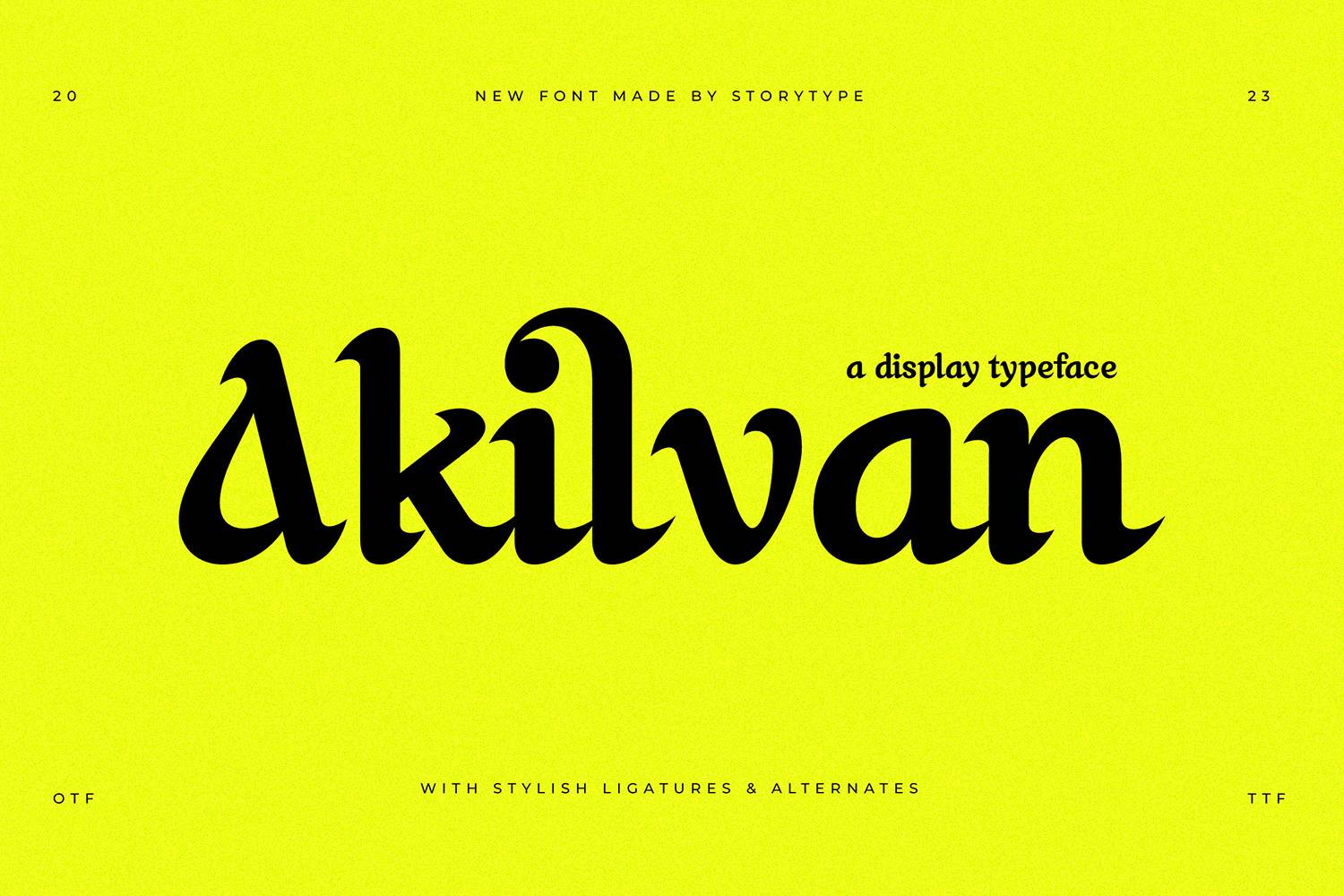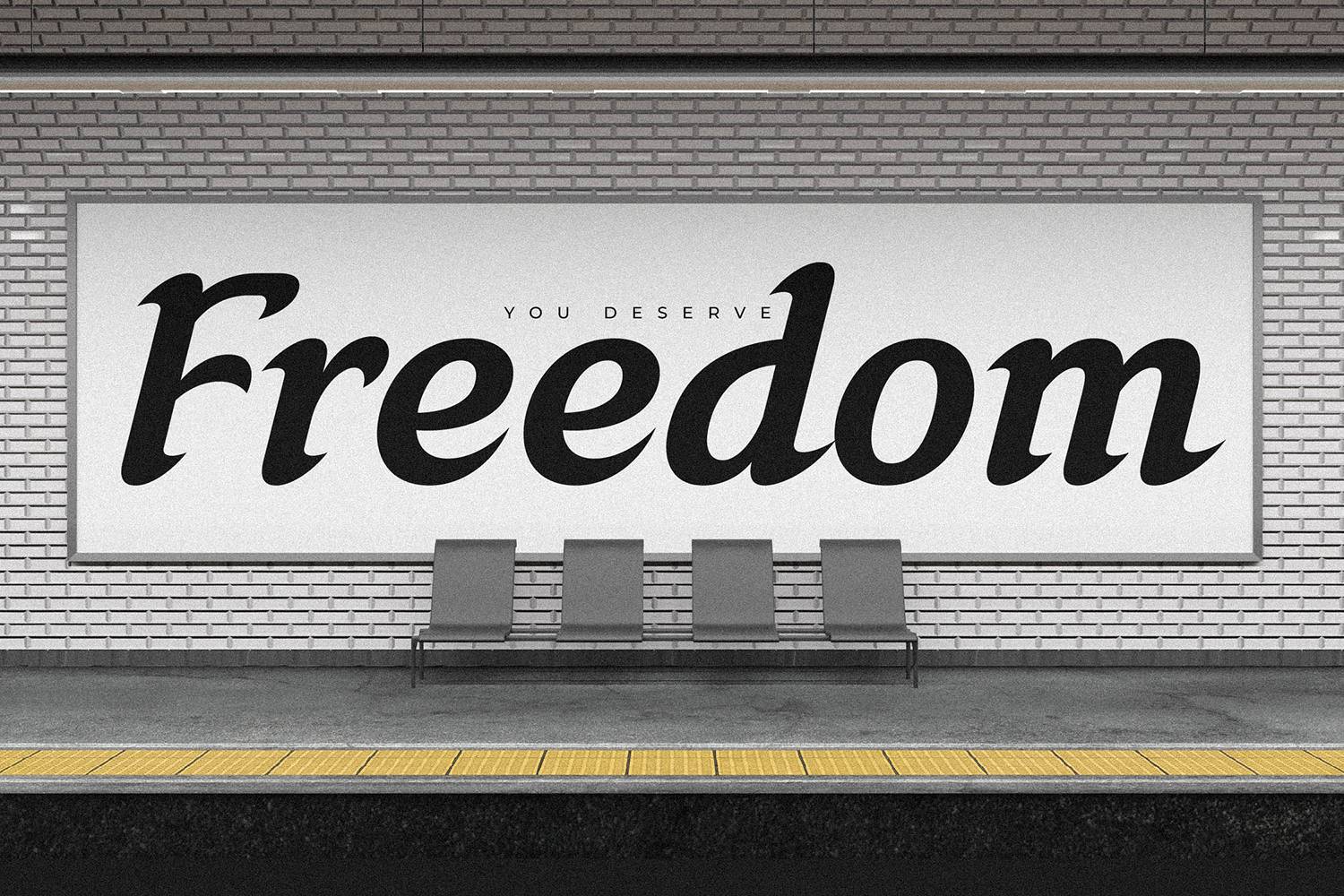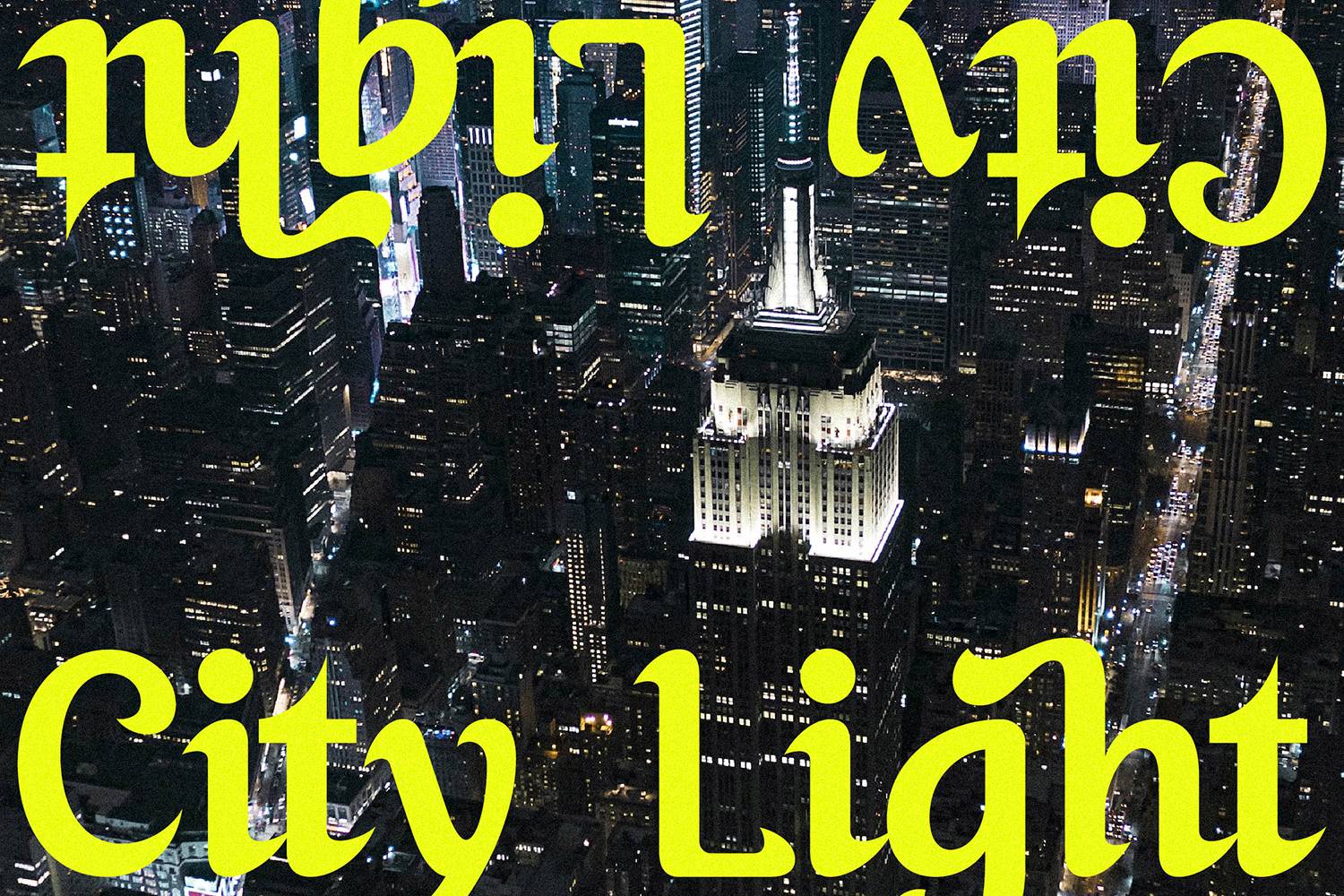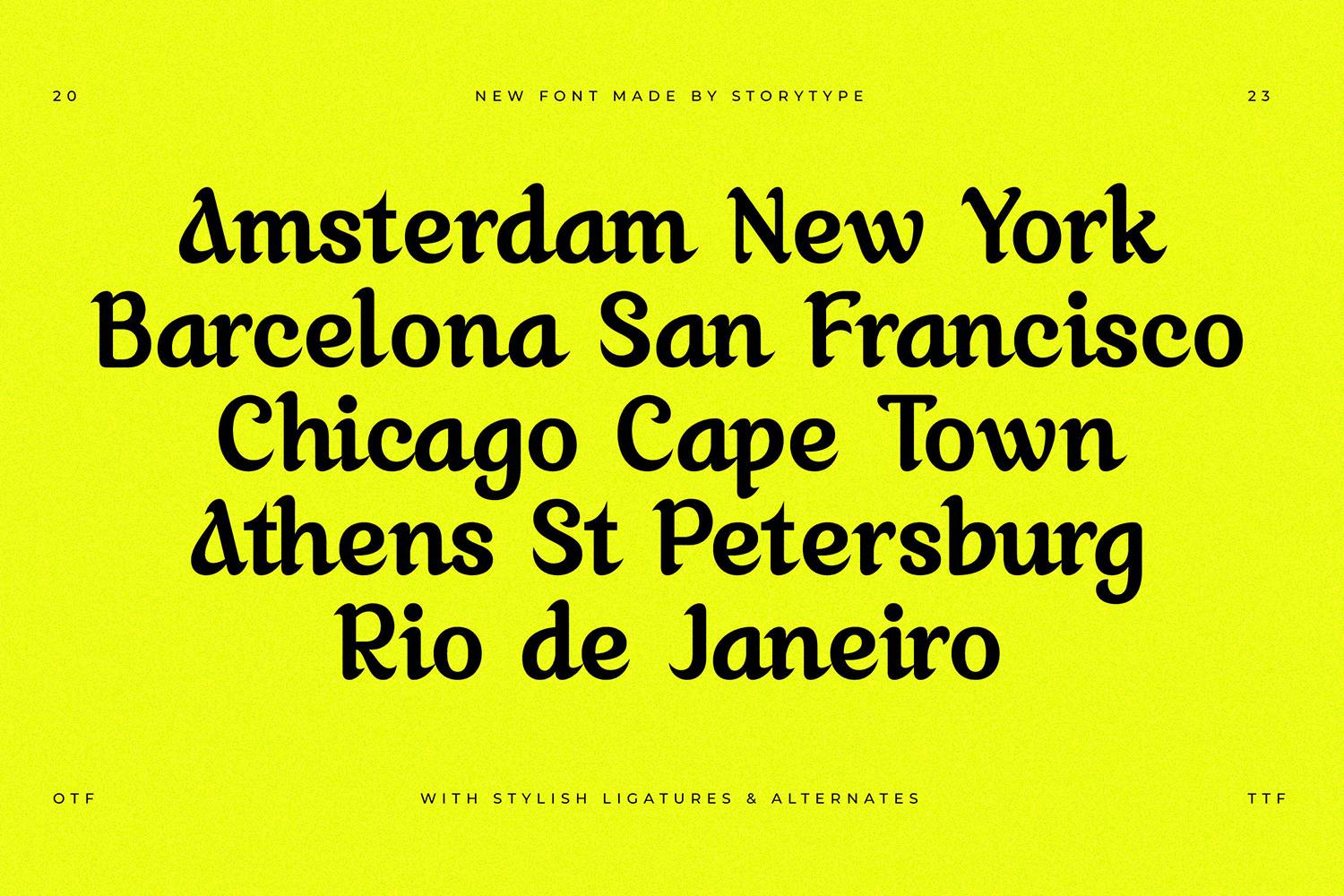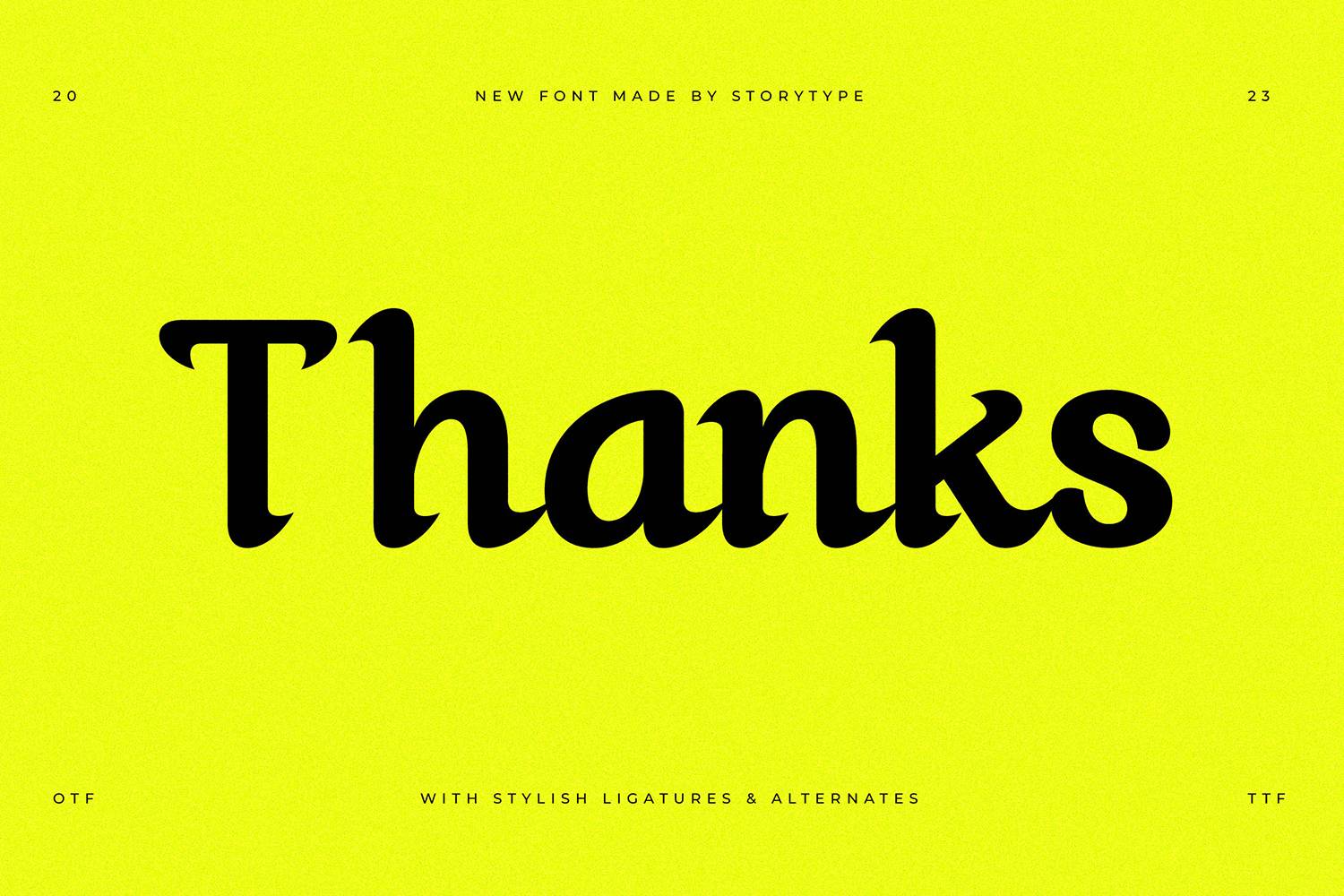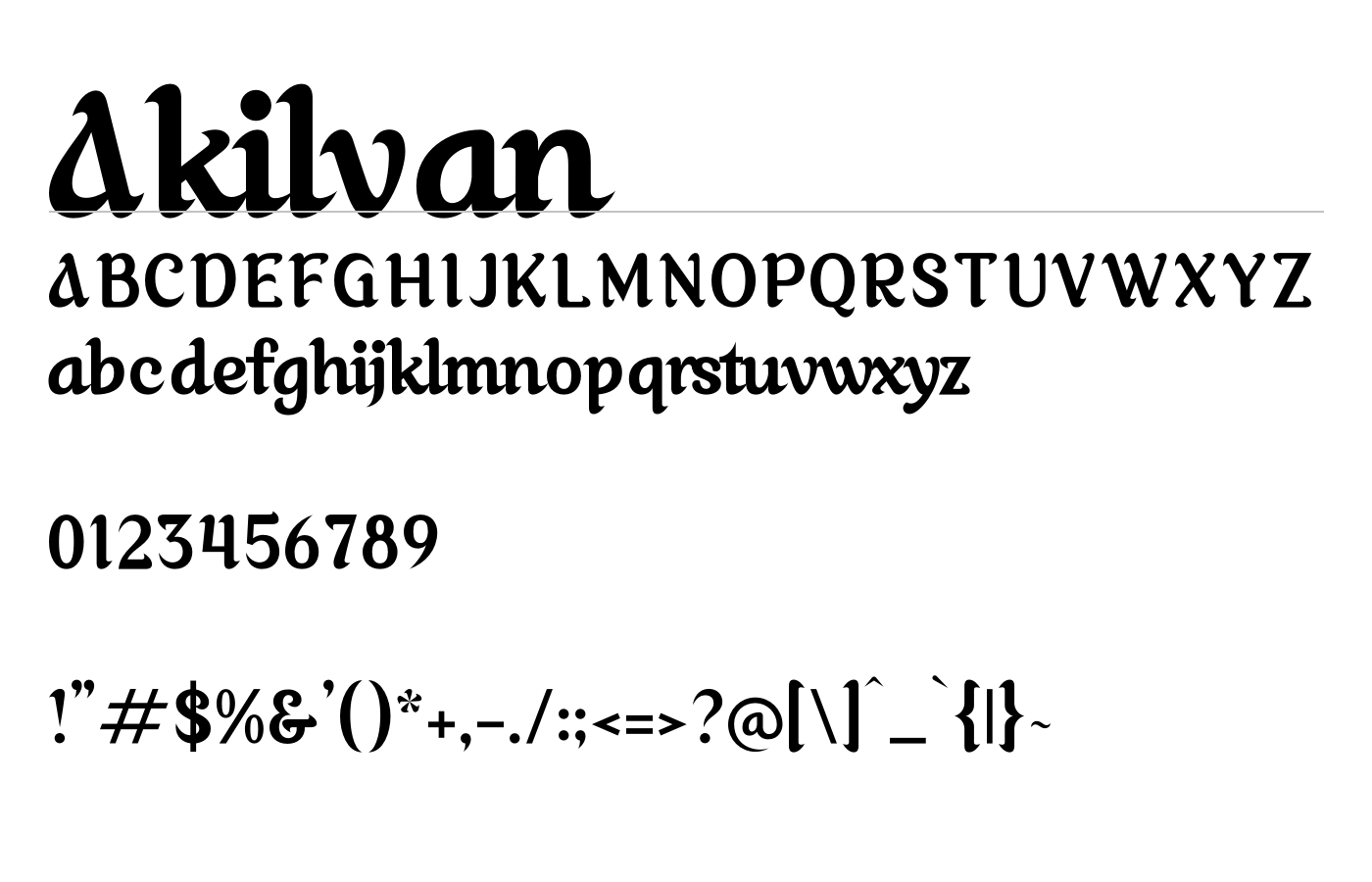
Akilvan is a distinctive serif font with a playful yet elegant charm, characterized by its moderate contrast between thick and thin strokes and slightly condensed letterforms. Its unique, rounded serifs and fluid, somewhat calligraphic shapes create a warm, approachable feel that works well for branding, editorial headlines, and creative projects seeking a vintage-inspired but lively touch. This font balances readability with personality, making it ideal for designs that want to stand out with a stylish yet friendly vibe.
Akilvan Font
About Akilvan Font